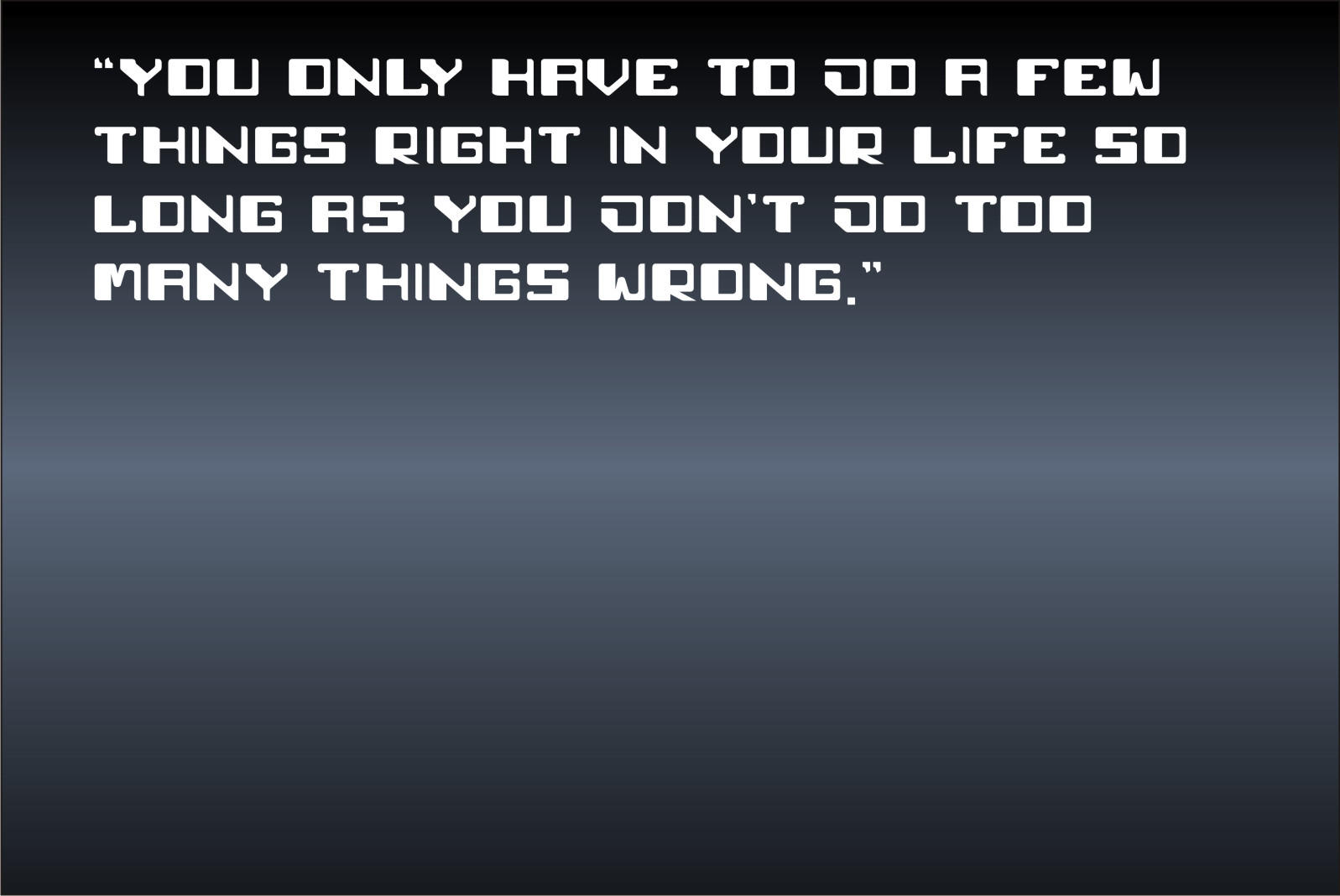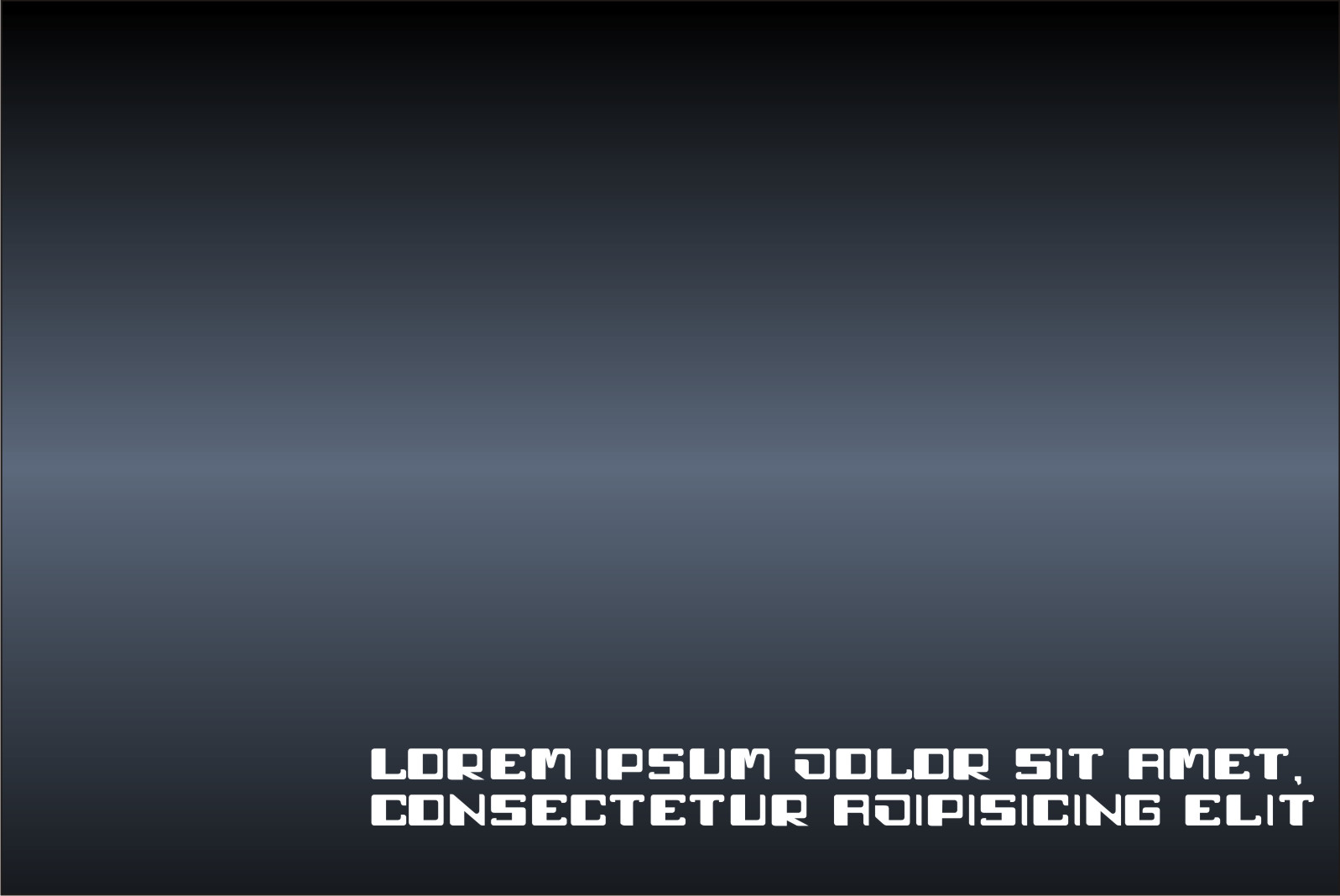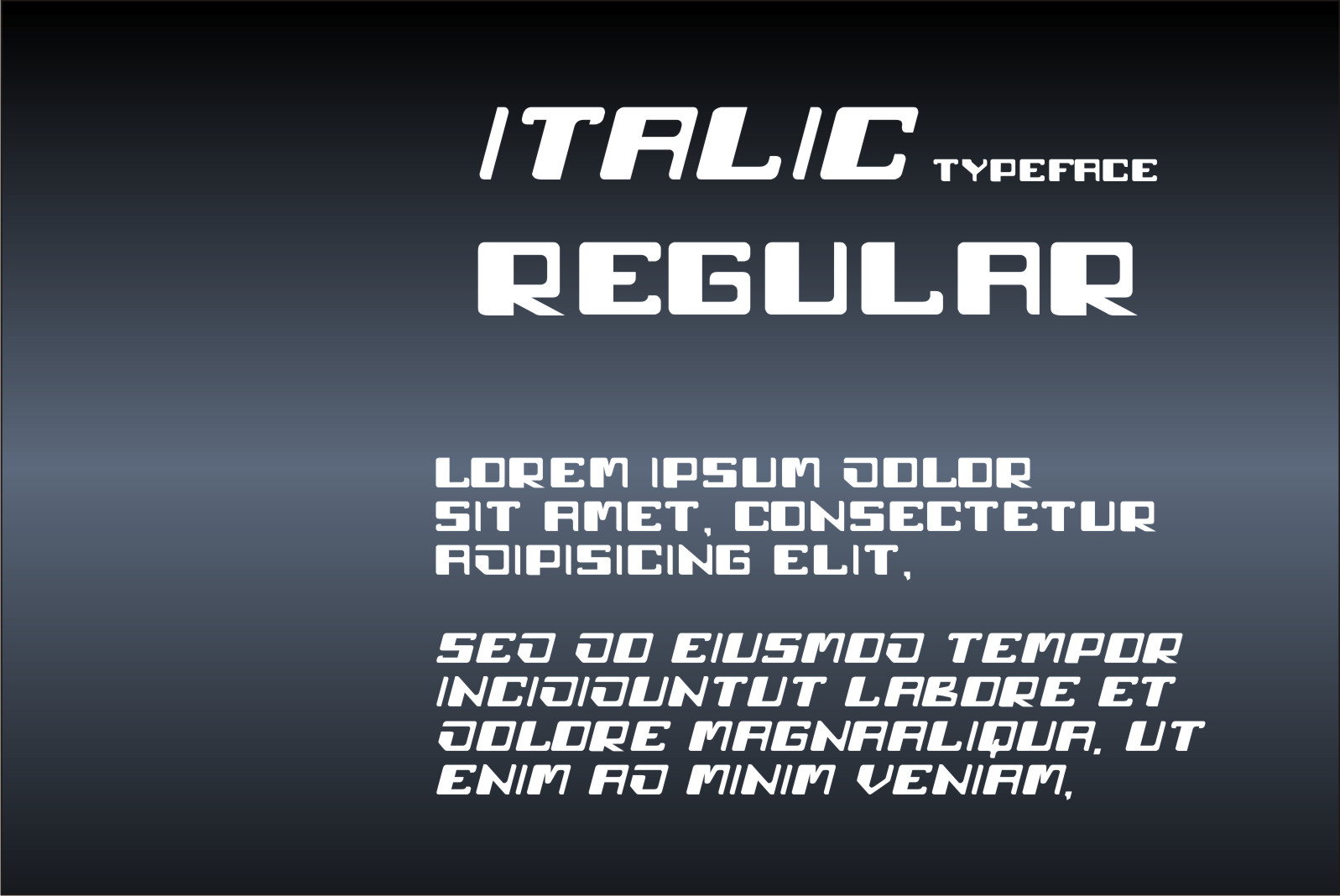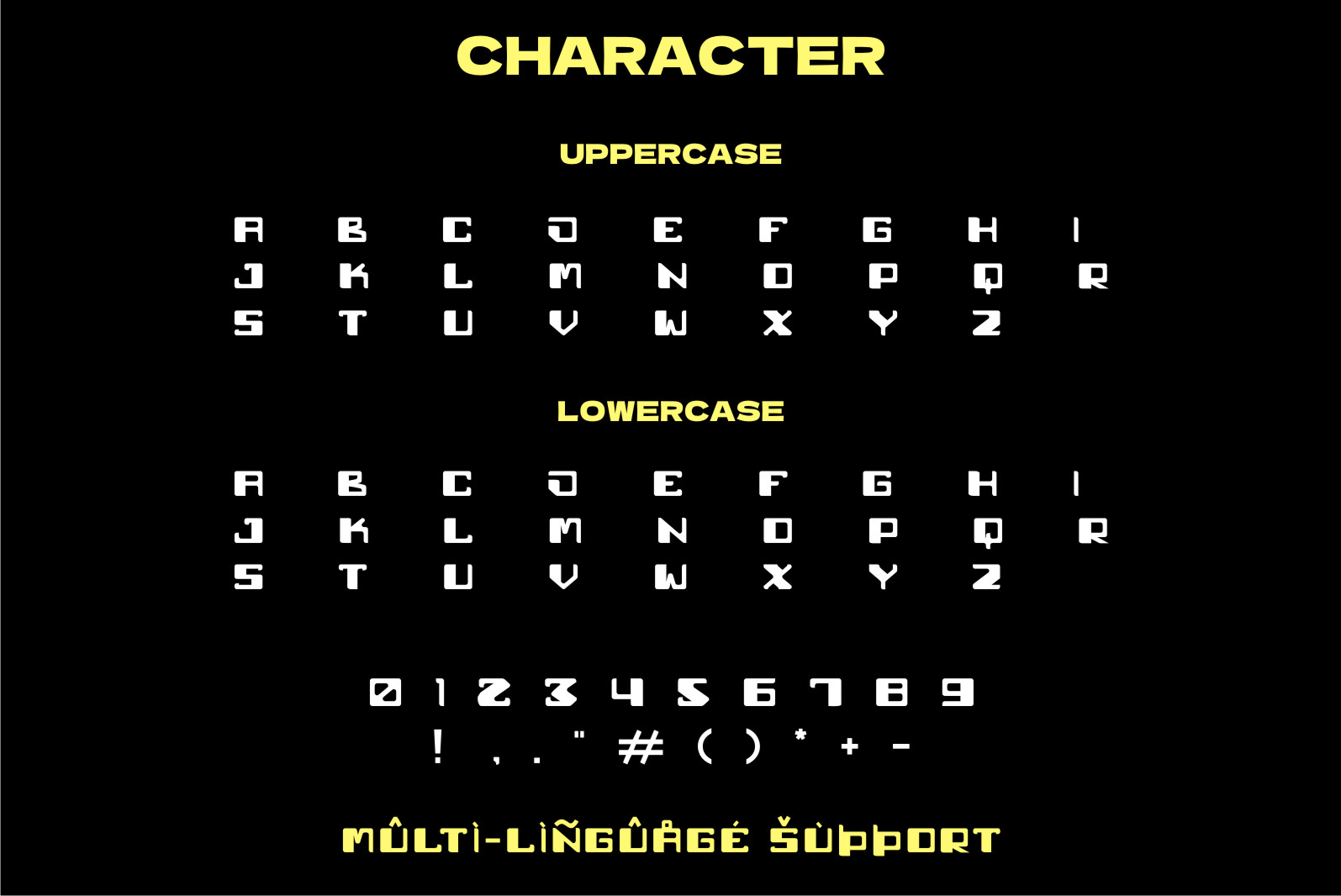
Senturn Font
Senturn Display Font
This is a cool, bold and modern-styled display font. This font is ideal for web designs, business cards, or pretty much anything else that requires a futuristic touch.